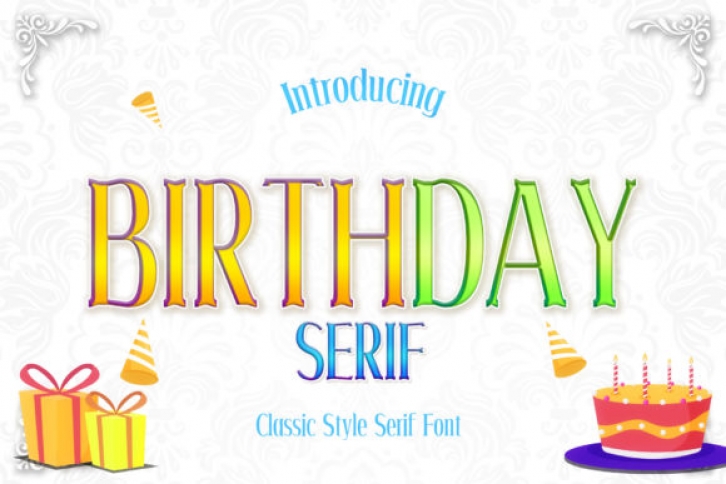
Birthday is a minimal and neat serif font. It can easily be matched to an incredibly large set of projects, so add it to your creative ideas and notice how it makes them stand out!